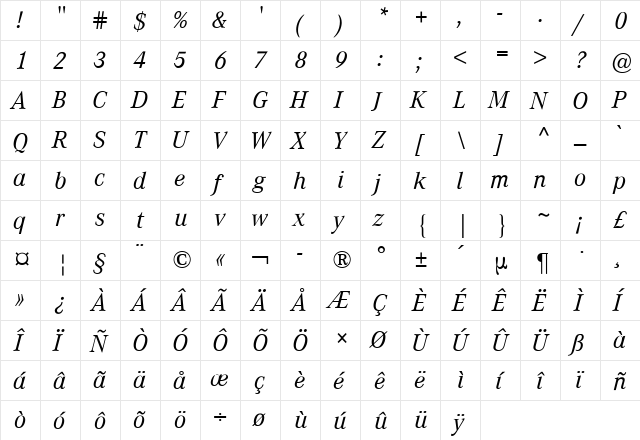
Corporate A BQ Italic
Design Context for Corporate A BQ Typeface
Corporate A BQ is a composed and adaptable typeface that performs quietly and consistently across a wide range of design contexts. The slanted form adds forward momentum and visual energy.
Pro Tip: Try Corporate A BQ for annotation and caption copy alongside an upright companion — the contrast in angle creates a dynamic but ordered typographic system.